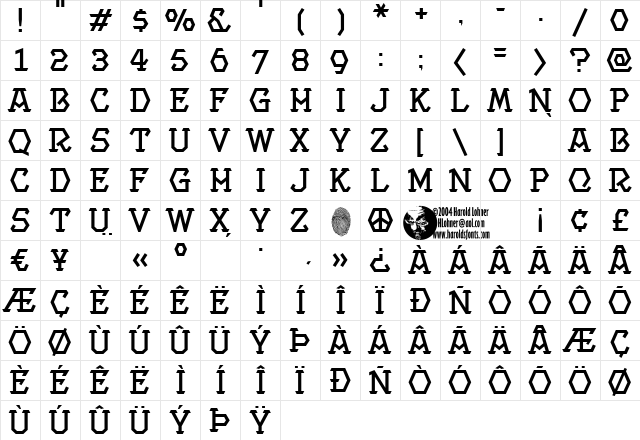
ProjectMedium Regular
| Copyright | PROJECT computer fonts v1.0 04 Harold Lohner "  "http://www.haroldsfonts.com Based on the opening titles of the film "Project Moon Base" (1953) |
Design Context for ProjectMedium Typeface
ProjectMedium offers clean, dependable letterforms without strong stylistic allegiance, making it a practical choice for designers who need flexibility.